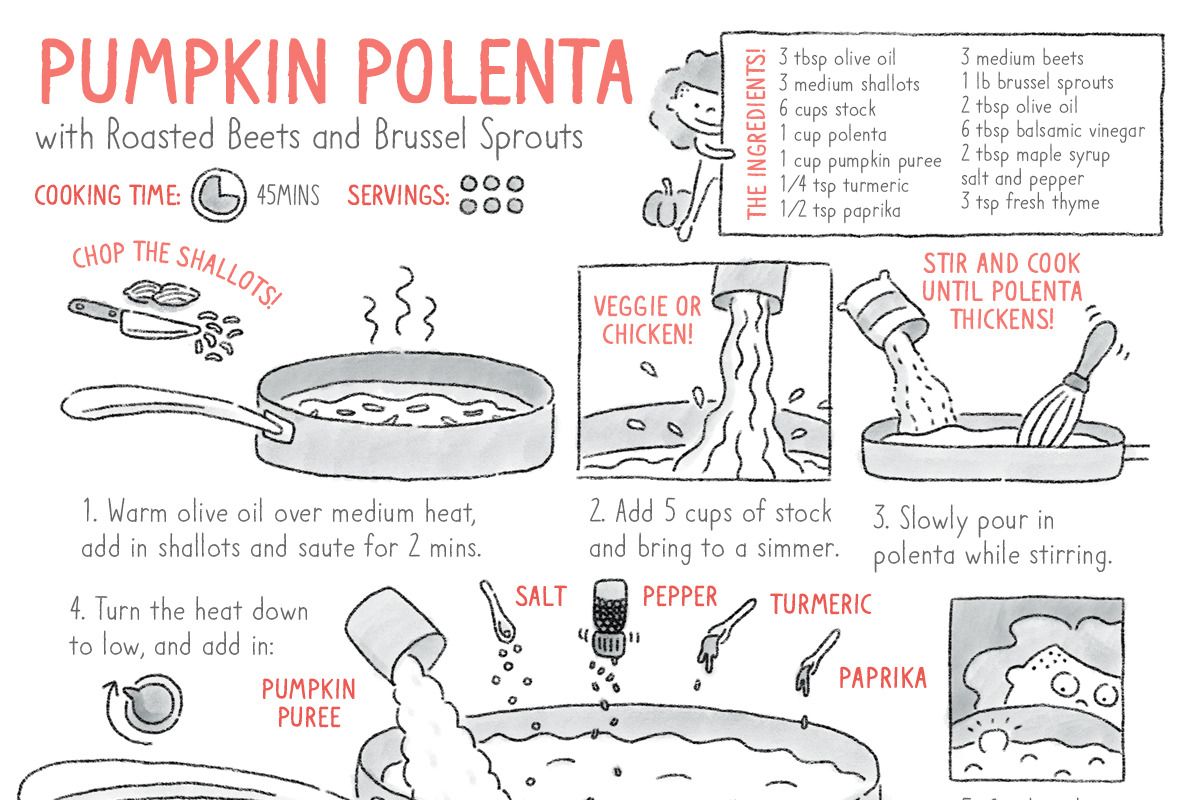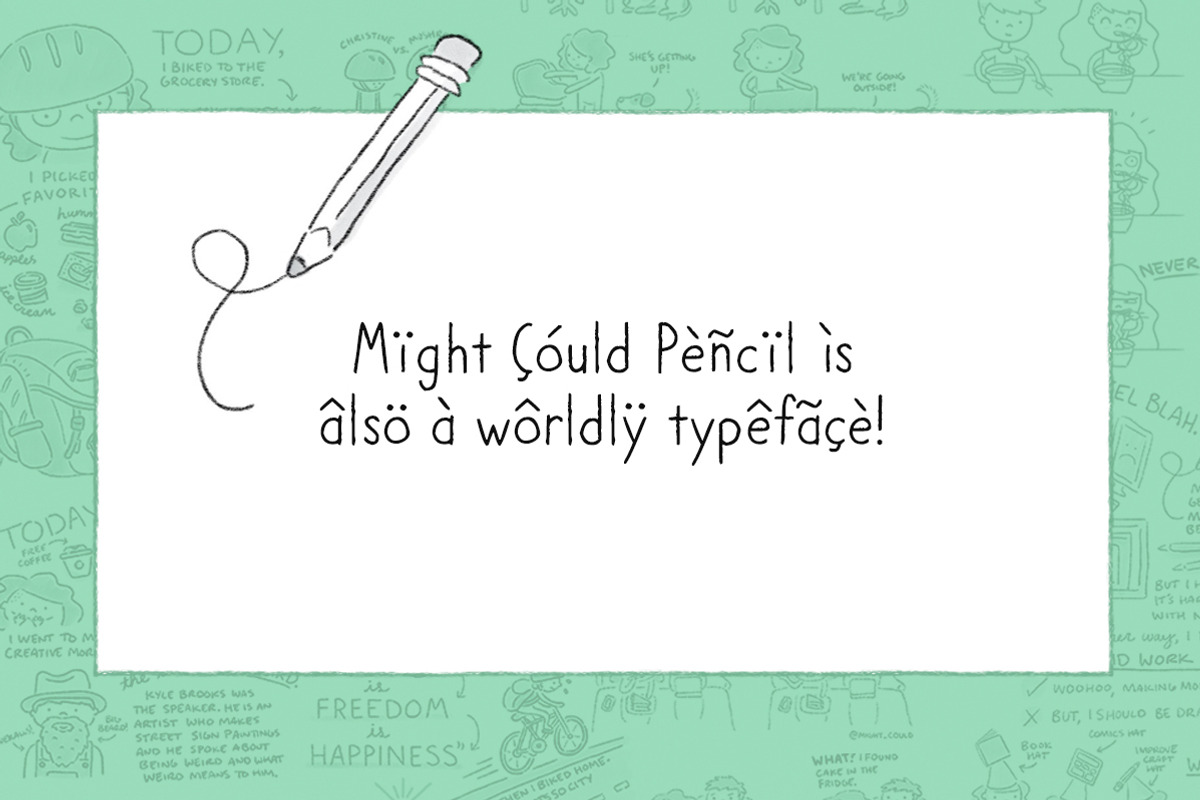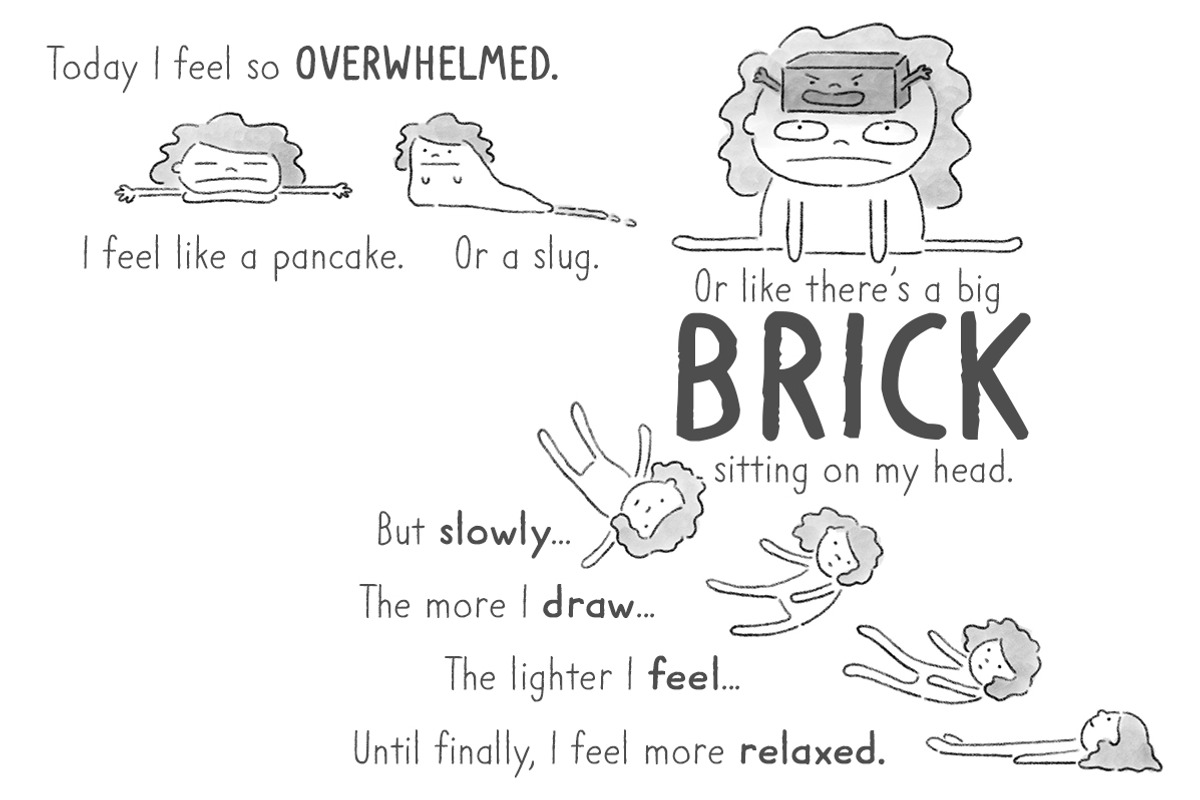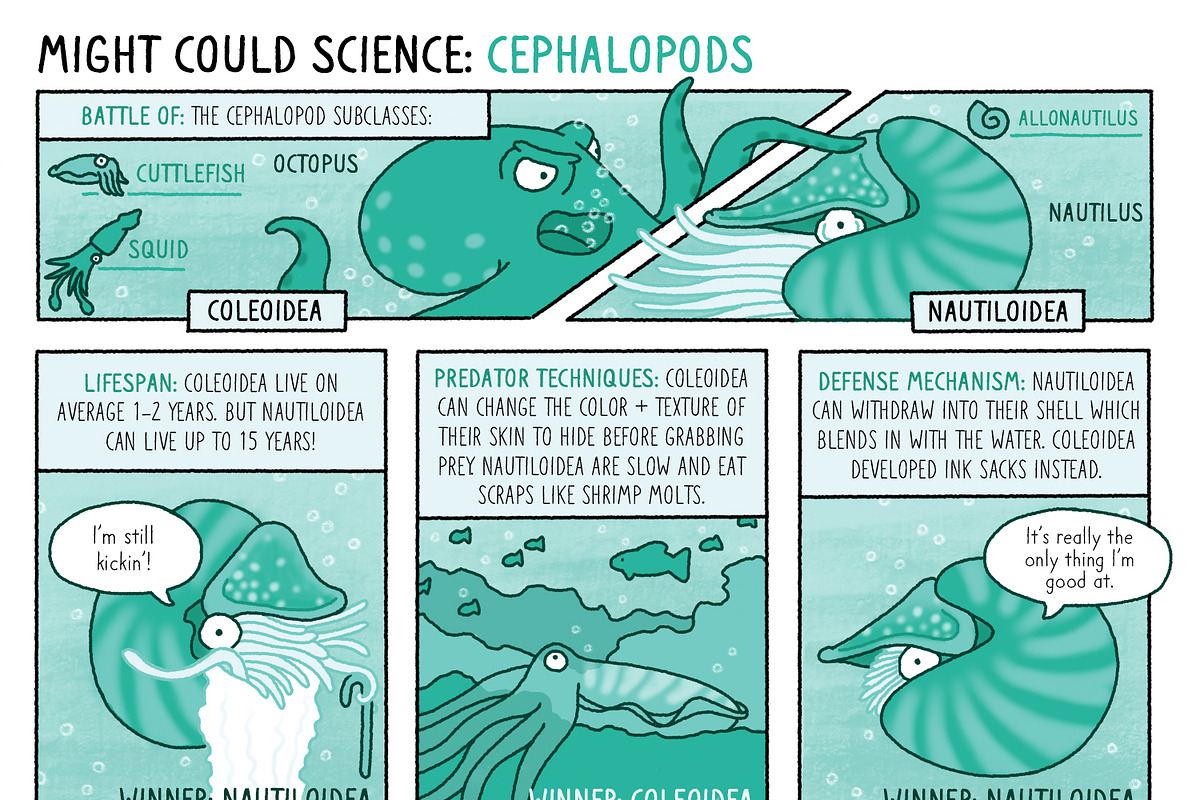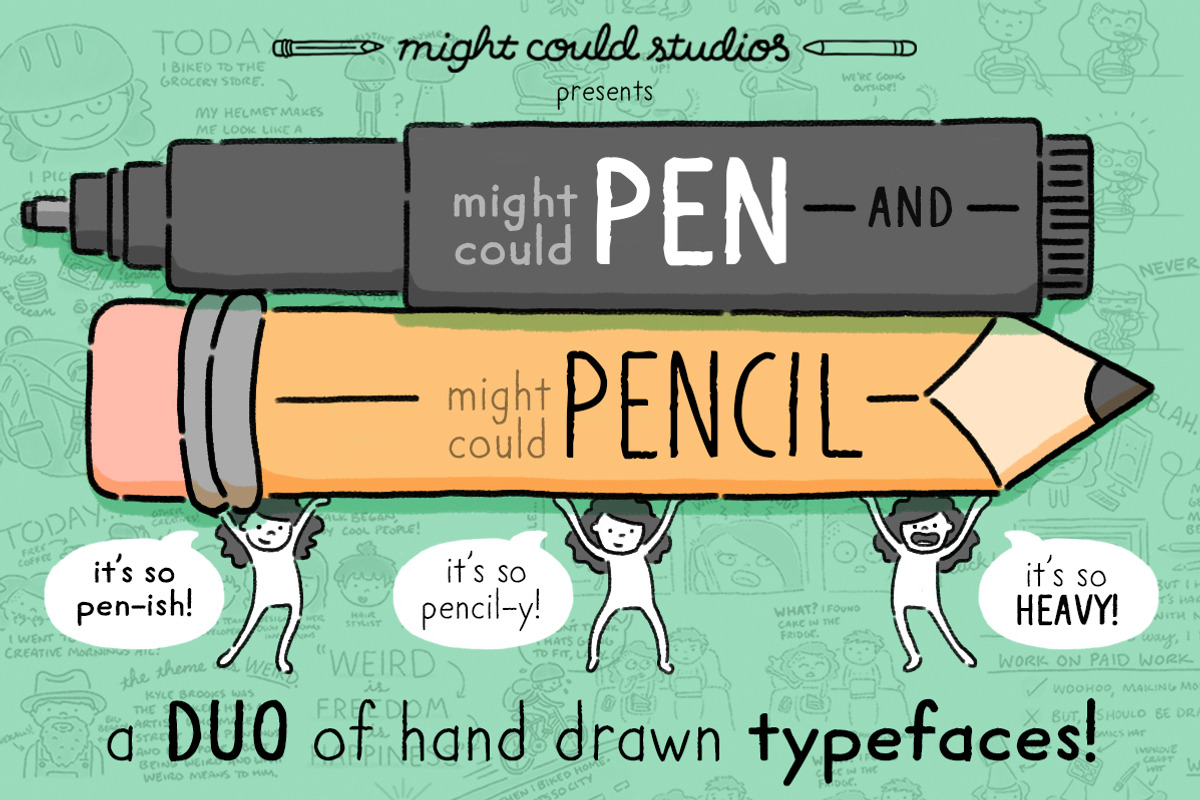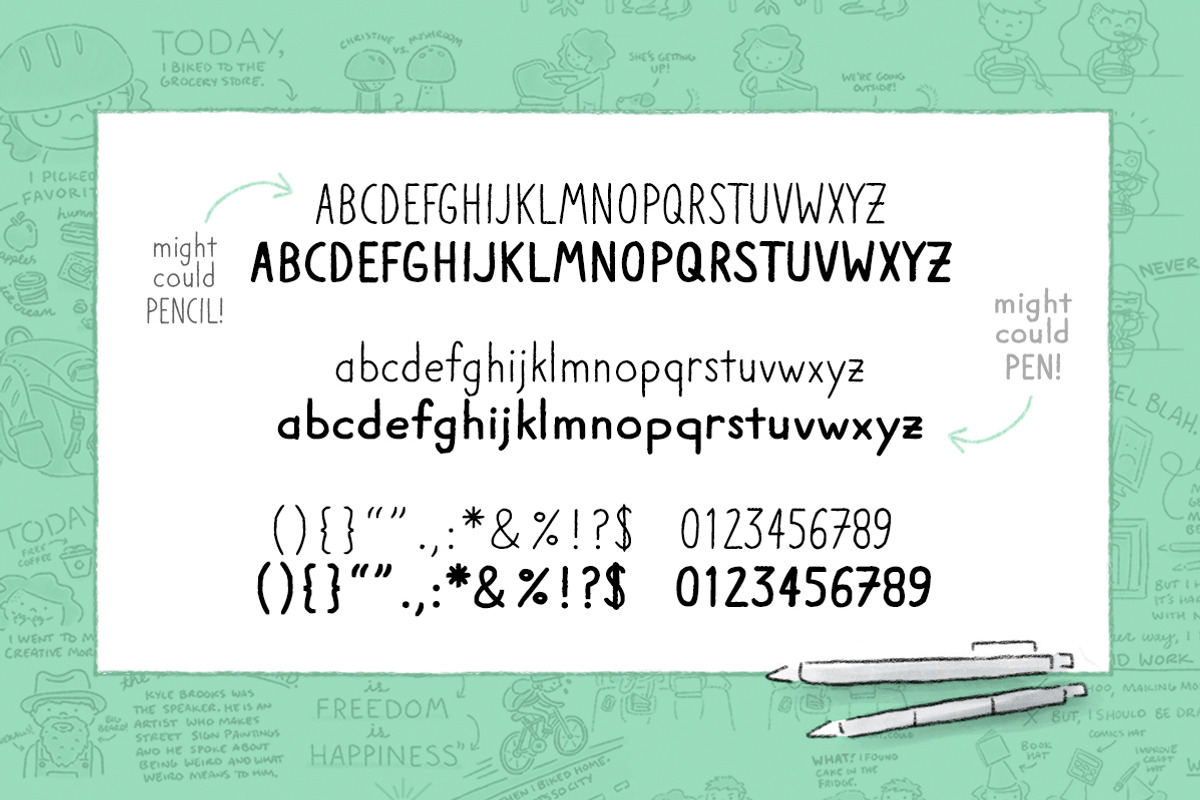
Might Could Pen + Pencil Font Duo
Might Could Studios presents.... a hand drawn font duo: Might Could Pen + Might Could Pencil!!
I hand draw a lot of typography for my comics, books, and promotional material, so I recently made my handwriting into a font, and I'm so thrilled you guys loved it! To pair with that original font, I've now made a bold version, Might Could Pen! And this font pack includes both!
Might Could Pencil and Might Could Pen are both hand drawn in my own handwriting, and are vectorized fonts. They're perfect for comics, graphic novels, books, invitations, business cards, or any other designer-y project you've got going on!
Hand drawn font design:
- Slightly condensed typeface family
- Roughness around the edges for a hand drawn feel, and less of a machiiiiiine made, slick feel.
- Looks great in title case and uppercase